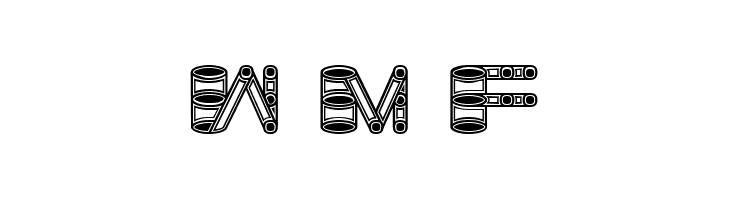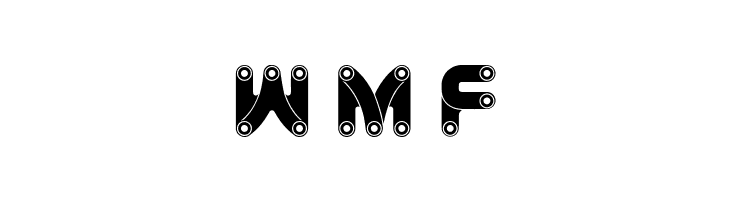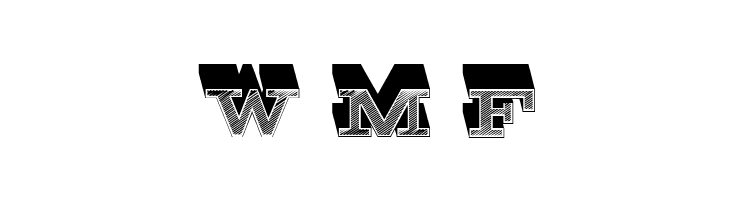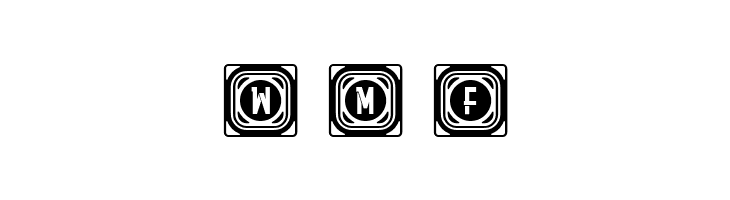
Mangalica Rustique Regular Font
Font by Vladimir Nikolic
A bold, mechanical-themed decorative font with intricate, gear-like details.
Baked Snails Hollow Rustique Regular Font
A playful, hollow font with rounded, tubular characters and bold outlines.
Canal Rustique Regular Font
Font by Vladimir Nikolic
A bold, industrial font with a mechanical, gear-like design.
Zylinder Inverted Rustique Regular Font
Font by Vladimir Nikolic
A decorative font with intricate, industrial-style patterns within each letter.
Zylinder Rustique Regular Font
Font by Vladimir Nikolic
A decorative font with intricate patterns and bold outlines.
Cyber Bold Rustique Font
A bold, geometric font with a futuristic, industrial design.
Ordinary Capitals Rustique Regular Font
A bold, decorative font with uppercase letters enclosed in square borders, offering a vintage and structured look.
Tuyaux Rustique Regular Font
Font by Vladimir Nikolic
A bold, decorative font with intricate, layered strokes and a tubular, mechanical appearance.
Overhead Rustique Regular Font
A bold, decorative font with a vintage, three-dimensional striped design.
Style Rustique Regular Font
A bold, decorative font with a vintage, three-dimensional style.
Amigo Rustique Regular Font
A bold, decorative font with intricate patterns and a three-dimensional effect.
Fantasy Rustique Regular Font
A bold, decorative font with intricate geometric patterns and concentric circles.
Blanket Thin Rustique Regular Font
A bold, decorative font with a 3D effect and intricate line patterns.
Fangxiang 3D Rustique Regular Font
A bold, 3D geometric font with intricate patterns and sharp angles.